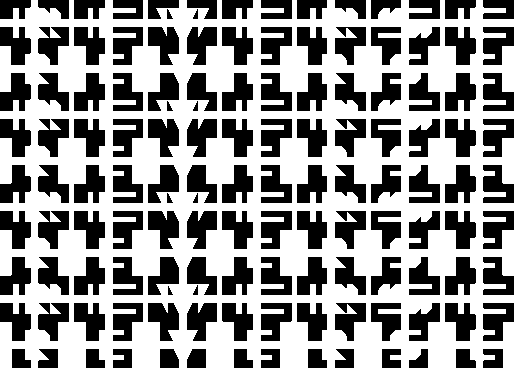
Another var. The other axis.
Another var. Both axis.
This font is 24 bricks tall, right?
usually, those numbers in names mean how tall the letters are, but here 24 bricks is only the letter without axis which stretches 6 bricks up and down. in sum, the whole black block is 6+24+6=36 bricks. diacritics stretch up to 11 bricks. so the tallest letter here (including endings of the axis and diacritic) is 47 bricks.